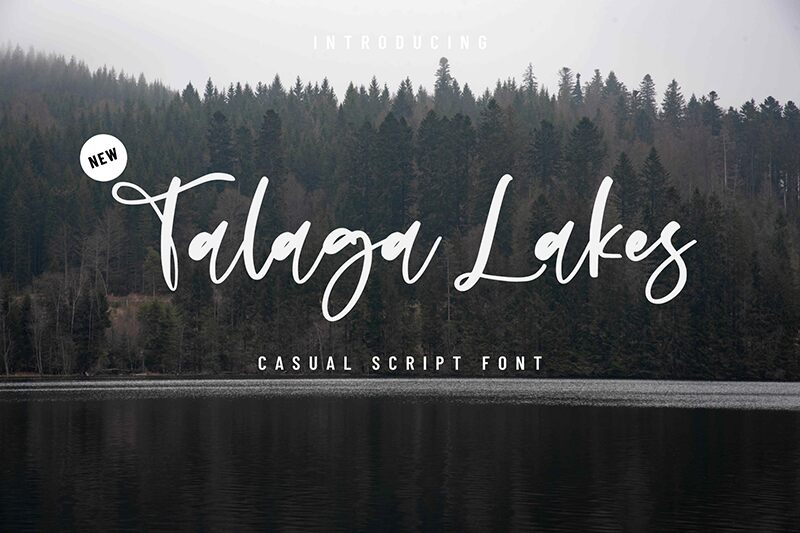
Talaga Lakes font, created by Ibrahima Studio of Aminmario, is a handwritten font which conveys casual elegance through its design. The letters stay flowing in a modern calligraphy style that has an expressive flair. Although readable and versatile in their applications, each glyph shows off enchanting visual and artistic elements that take noticeable inspiration from handwriting.
Make the ordinary extraordinary with the use of this font in posters, event invitations, product labels and packaging on all scales as well as branding projects such as logotypes. Pair it with other styles to get visual hierarchy in brochure or magazine covers where certain aspects should instantly stand out.
Talaga Lakes